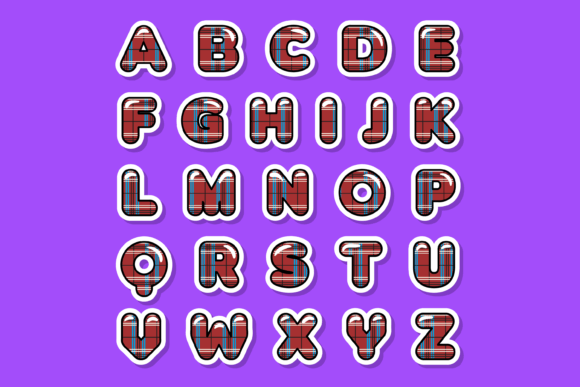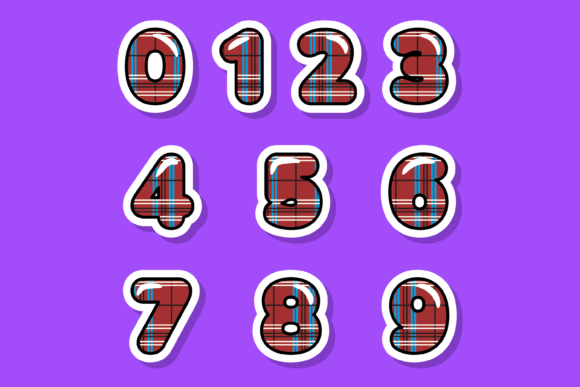
About Plaid Font
Plaid is an exceptionally cool and visually captivating color font that adds a unique touch to your designs. Whether you’re working on custom designs, DIY crafts, or any creative project that calls for a lovely and eye-catching element, Plaid is an amazing choice.
This font’s standout feature is its intricate and detailed plaid patterns within each letter. The combination of colors and textures creates a visually stunning effect, giving your designs a distinct and fashionable look. Plaid is perfect for adding a touch of style and personality to your creations.
Whether you’re designing invitations, greeting cards, posters, or digital graphics, Plaid will make your projects stand out from the crowd. Its cool and mesmerizing appearance draws attention and adds a dynamic element to your designs.
Plaid’s versatility allows it to be used in a variety of contexts and applications. It can be utilized in both digital and print mediums, making it suitable for a wide range of projects. Whether you’re a professional designer or someone with a passion for creativity, Plaid offers endless possibilities for bringing color and style to your work.
Embrace the captivating nature of Plaid and unleash your creativity. Let the intricate plaid patterns add a touch of uniqueness and elegance to your designs. Whether you’re creating custom designs, engaging in DIY crafts, or any other creative endeavor, Plaid is an excellent choice for making a visually stunning impact.